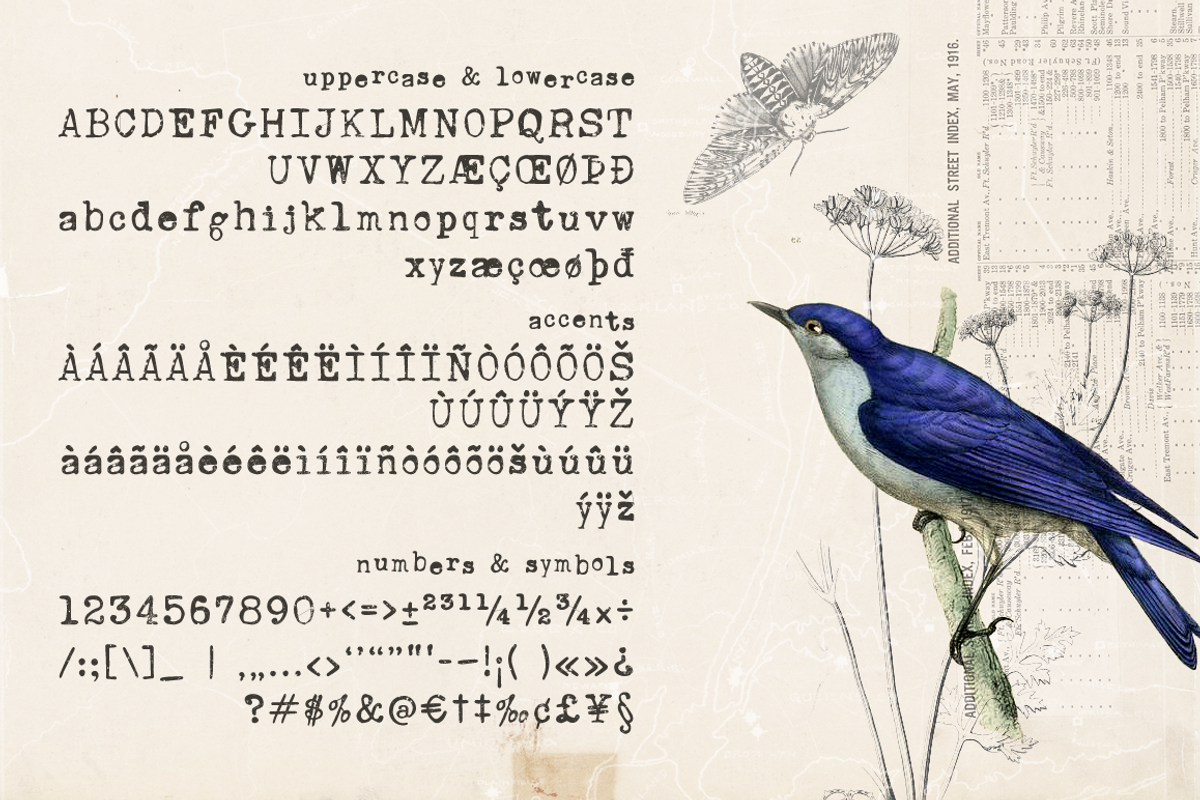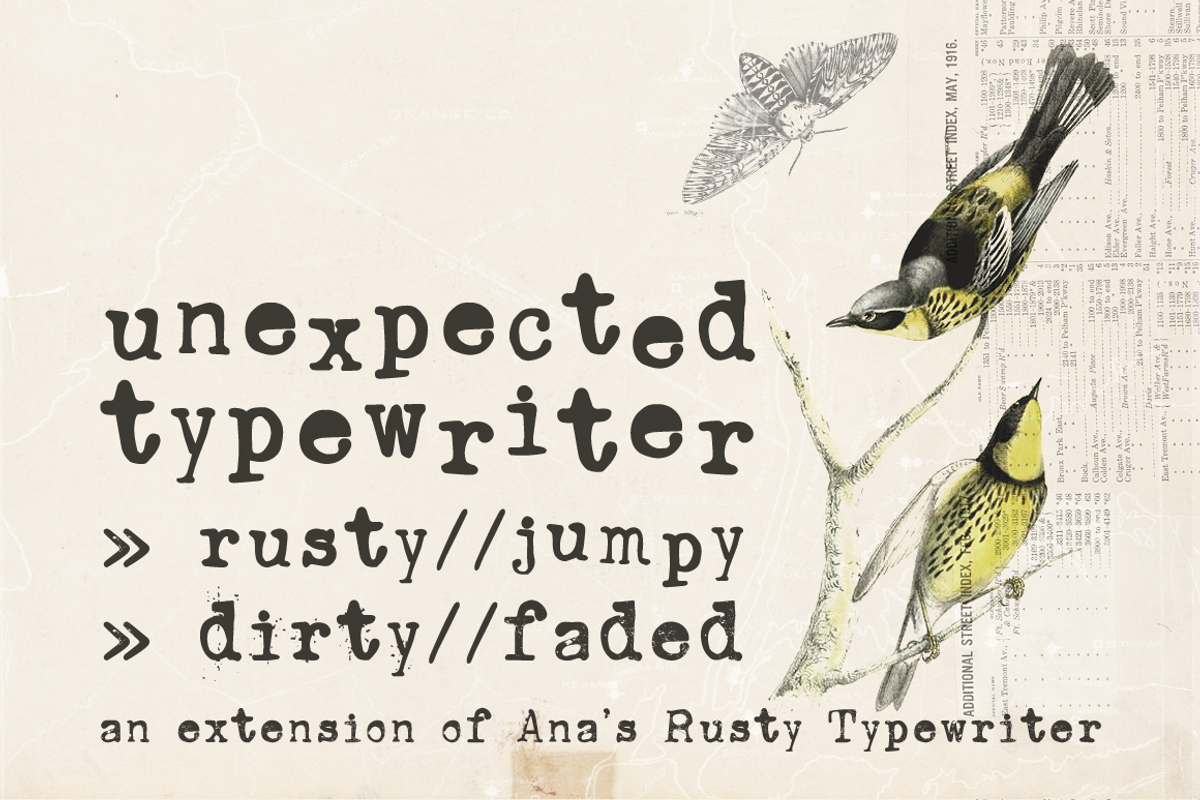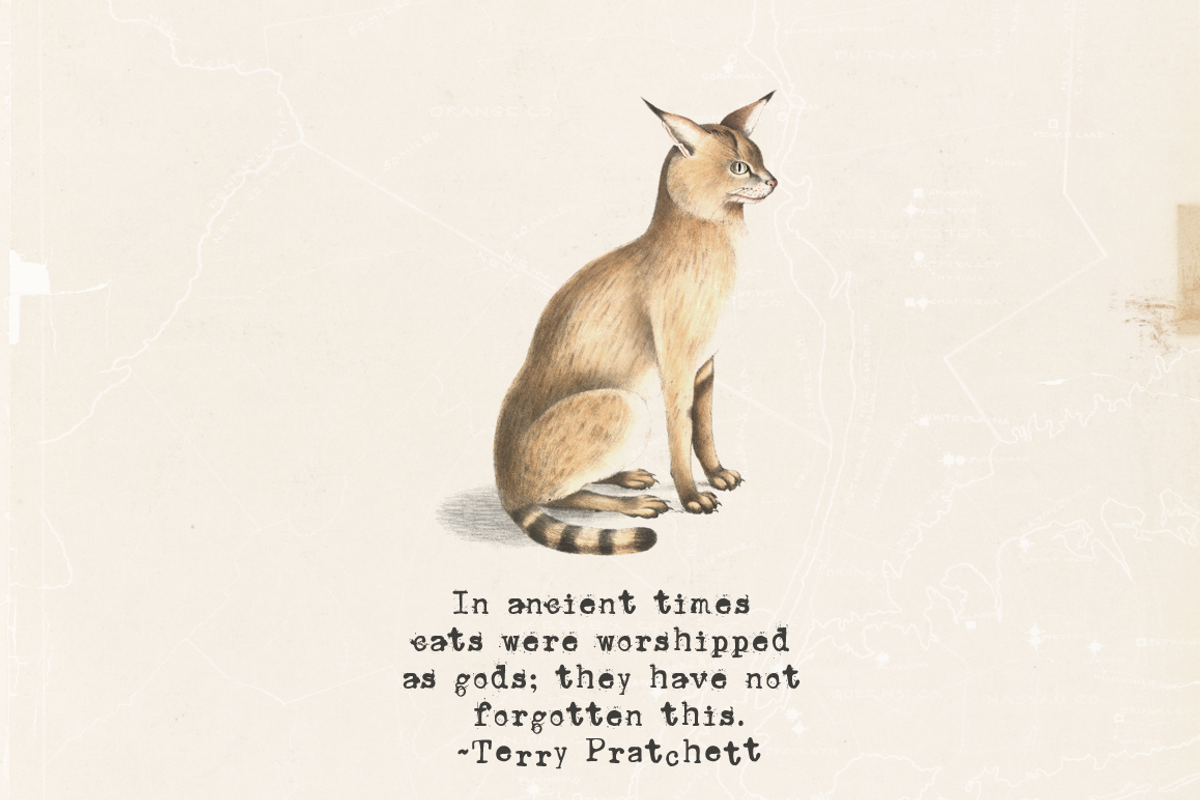
Unexpected Typewriter font
Unexpected Typewriter font by Ana's Fonts is a font selected for branding, posters, packaging, typography.
- Unexpected Typewriter is a hand-drawn font based on an old Underwood typewriter, including: A-Z | a-z | 0-9 Punctuation & symbols Accents Th
Unexpected Typewriter font by Ana's Fonts fits naturally into Branding, posters, packaging, typography.